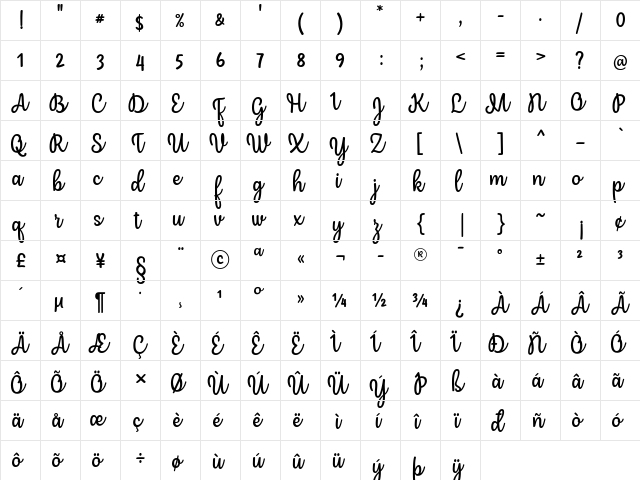
Mergic Regular
| Foundry | 7NTypes |
| Designer | Situjuh Nazara |
Design Context for Mergic Typeface
Mergic is a composed and adaptable typeface that performs quietly and consistently across a wide range of design contexts.